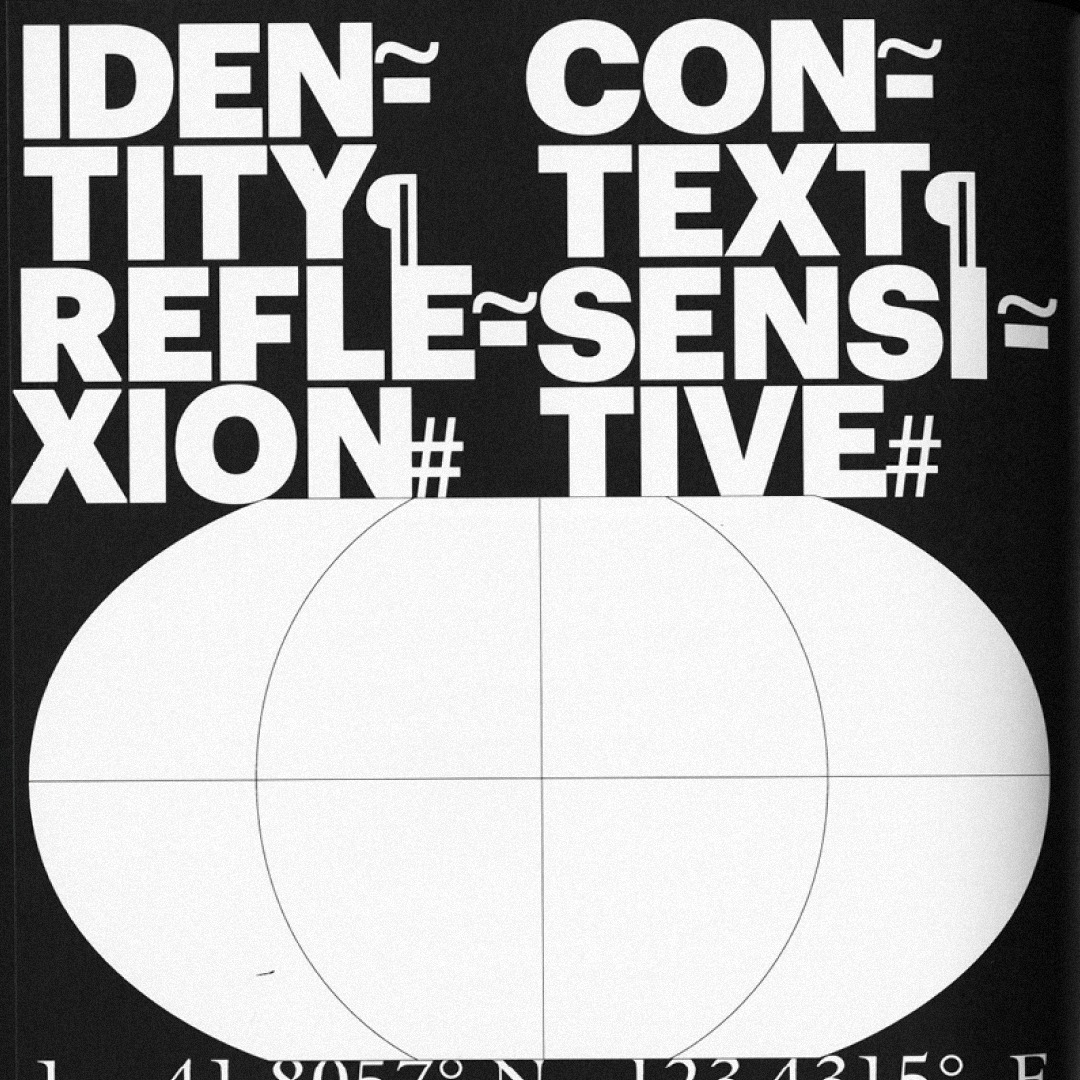
Identity Production zine is an attempt by Rhode Island School of Design student Boyang Xia to analyse how people build and rebuild their identities and handle crises associated with them. The publication’s titles and half-titles are set in Graphik by Commercial Type, with Input Sans Mono by David Jonathan Ross used for its body text.
Input is a collection designed to satisfy any typographic needs of coders. Sans, Serif and Mono fonts will help make a complicated structure of a code clearer and more attractive visually, as well as slightly remind of the aesthetics of pixel fonts from the screens of first computers.
Graphik is a multifunctional sans serif typeface created by Commercial Type studio, good for display purposes, small sizes and practical tasks such as navigation and mapmaking. Cyrillic Graphik was designed in 2015 by Ilya Ruderman (CSTM Fonts).